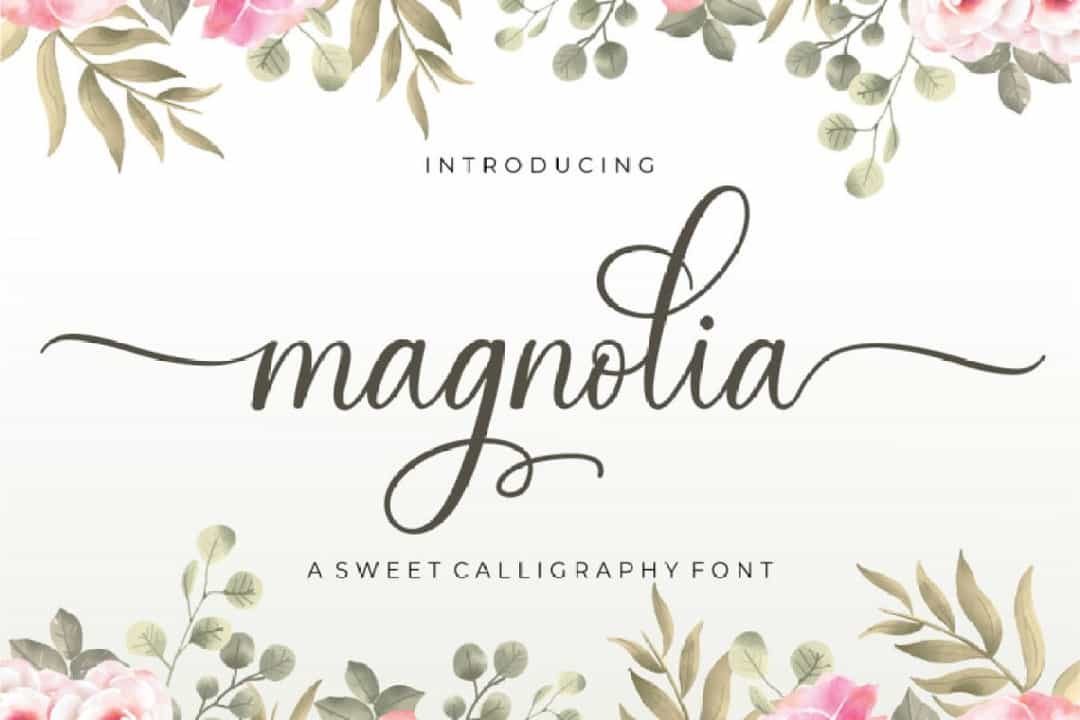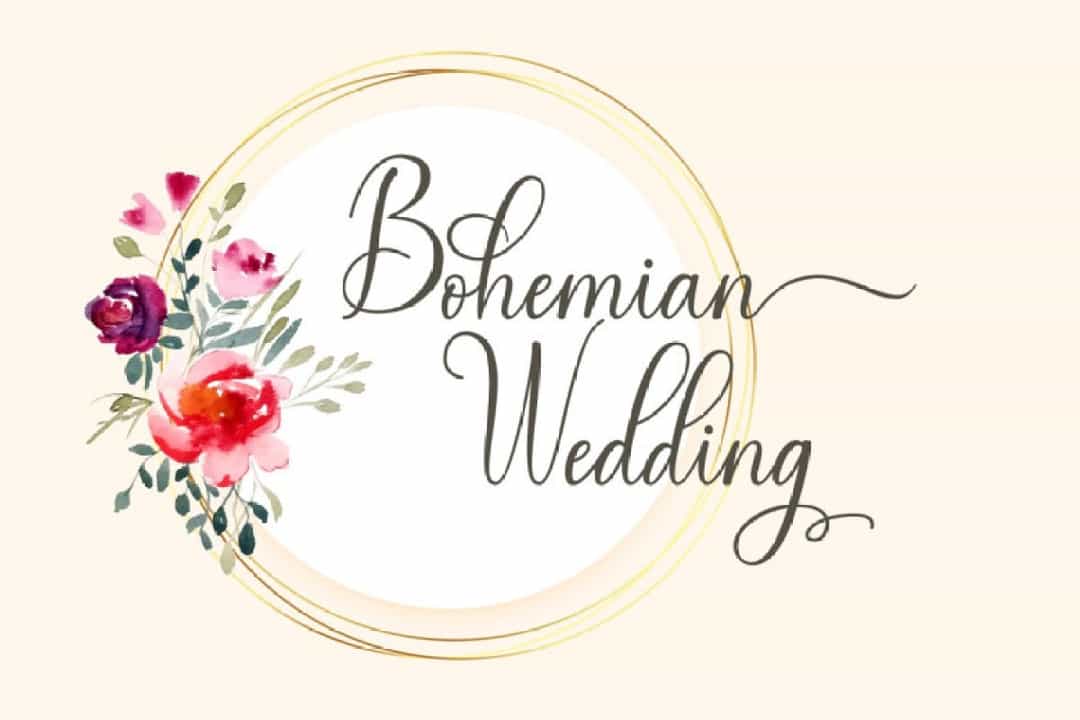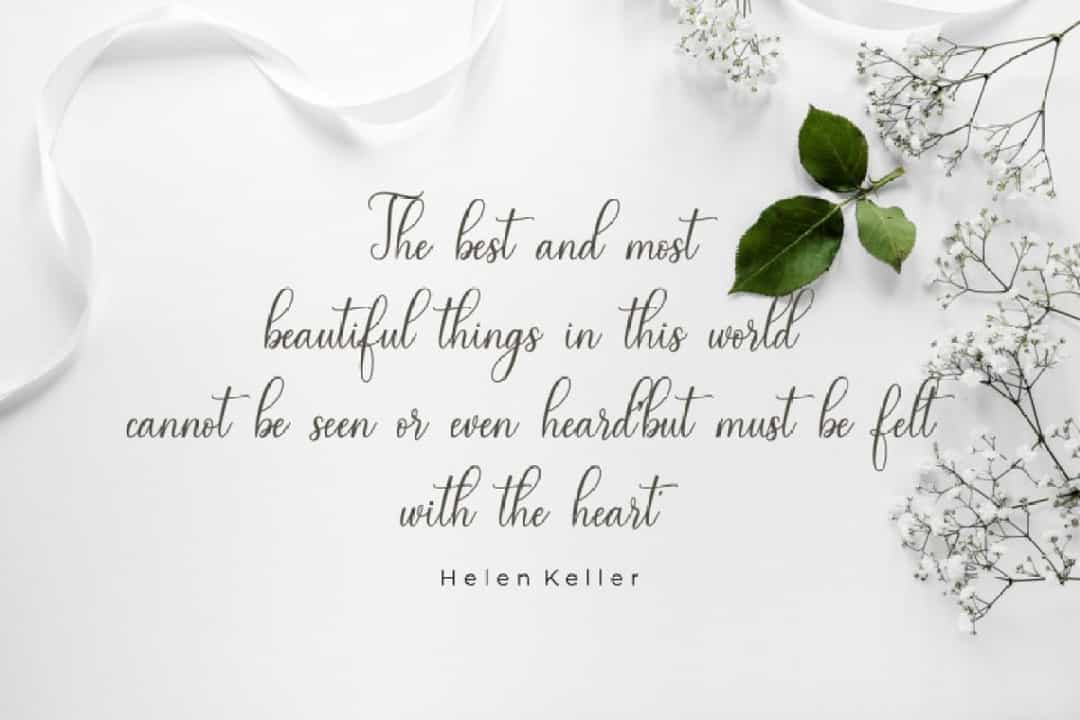
Magnolia is an elegant script calligraphy font encoded with PUA so that all its swashes and glyphs can be easily accessed! It also comes equipped with variable baseline widths for smooth lines, stunning glyphs, and beautiful alternates – everything you’d expect in a great calligraphy font!